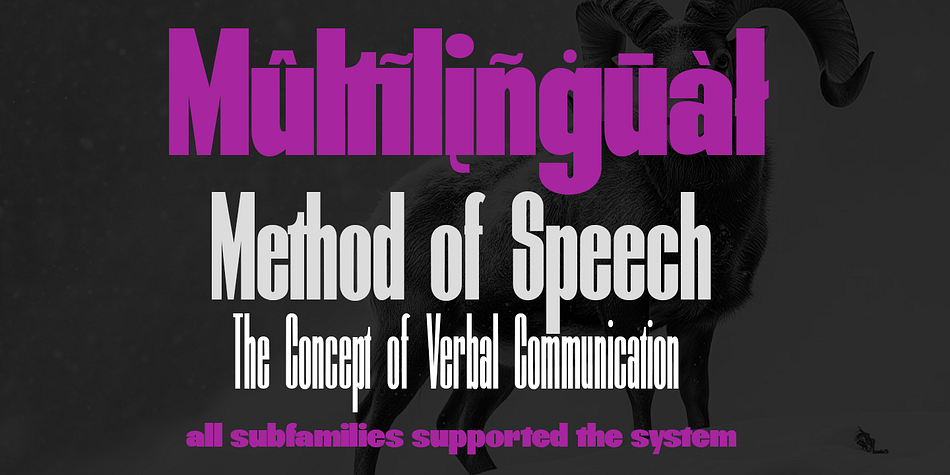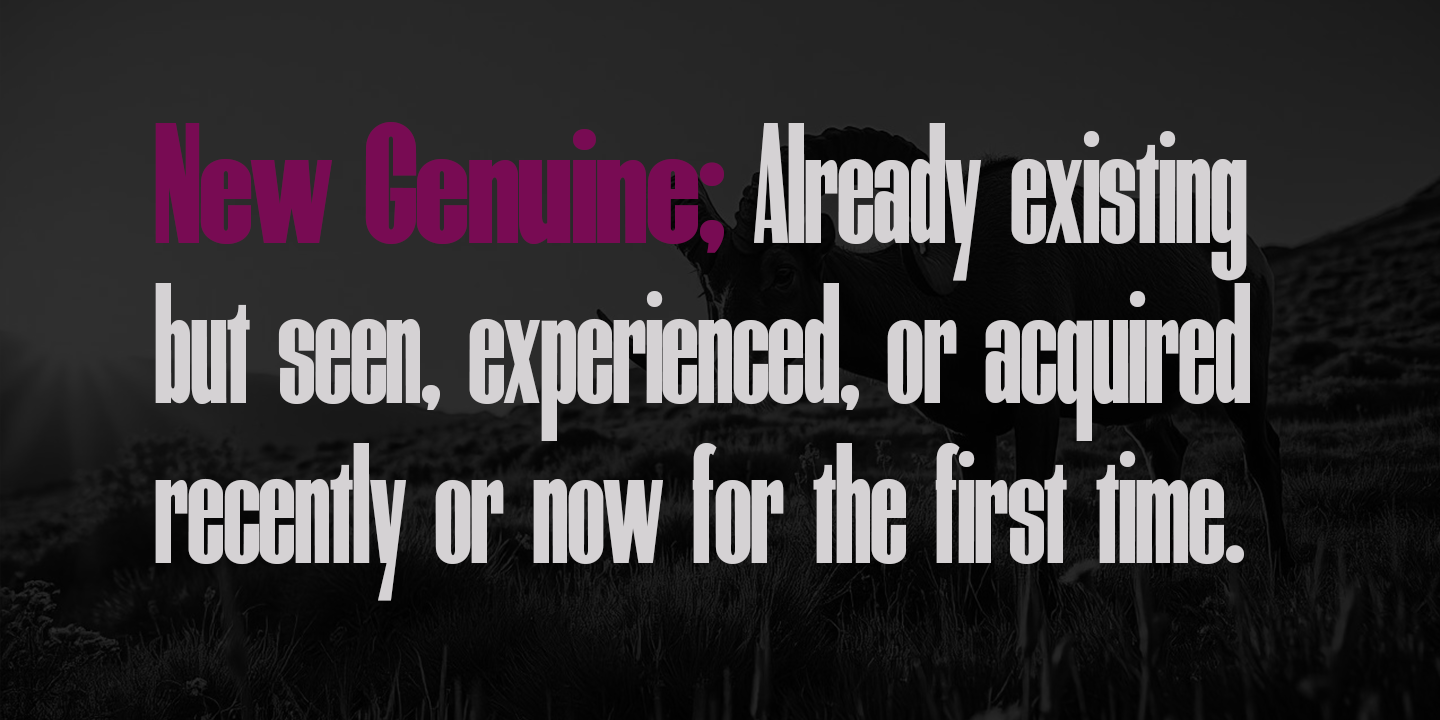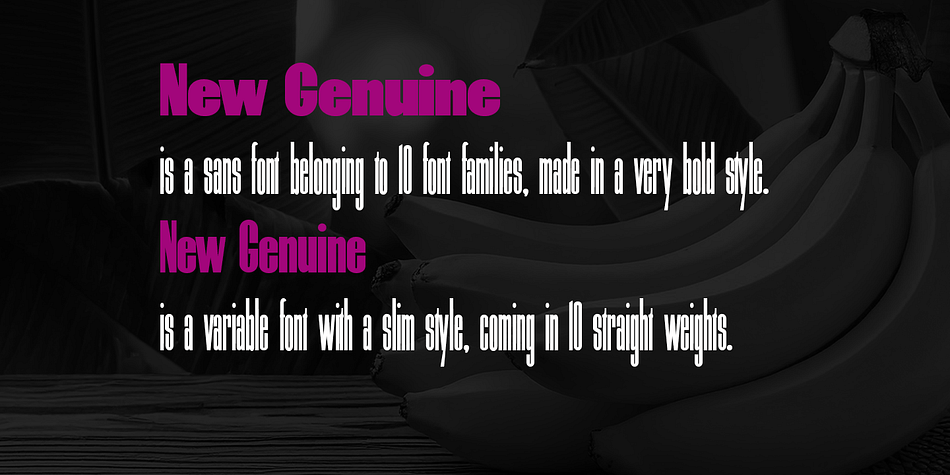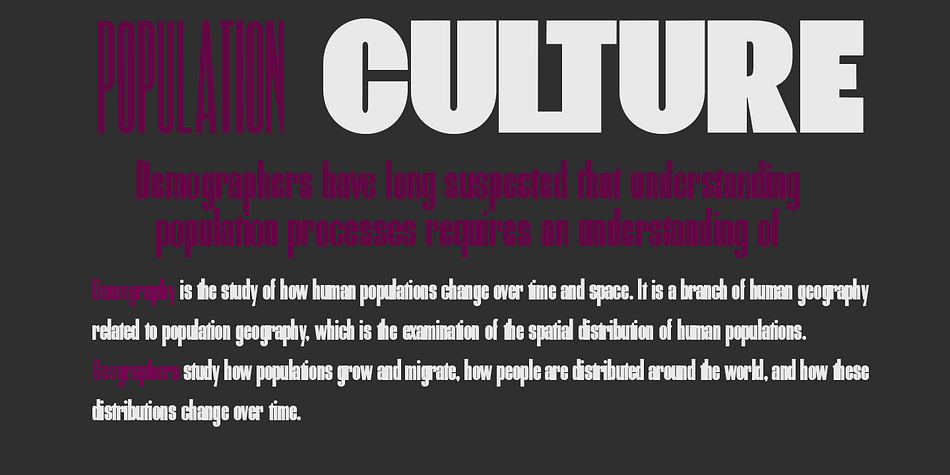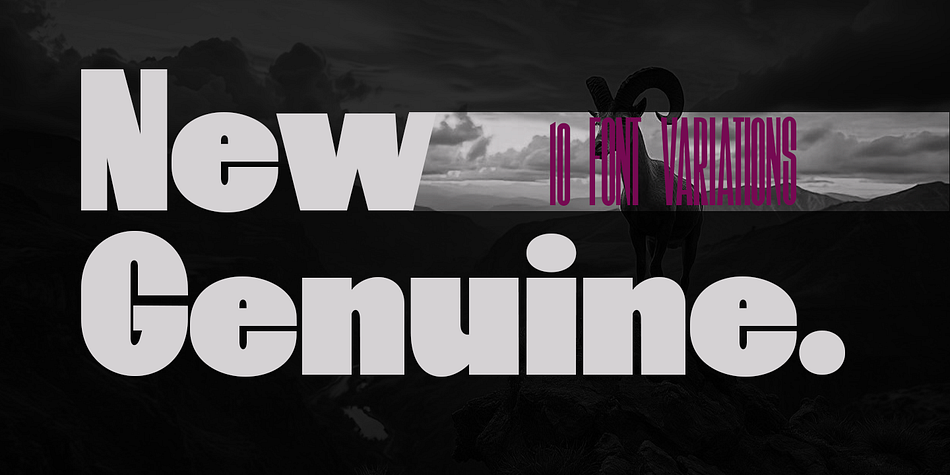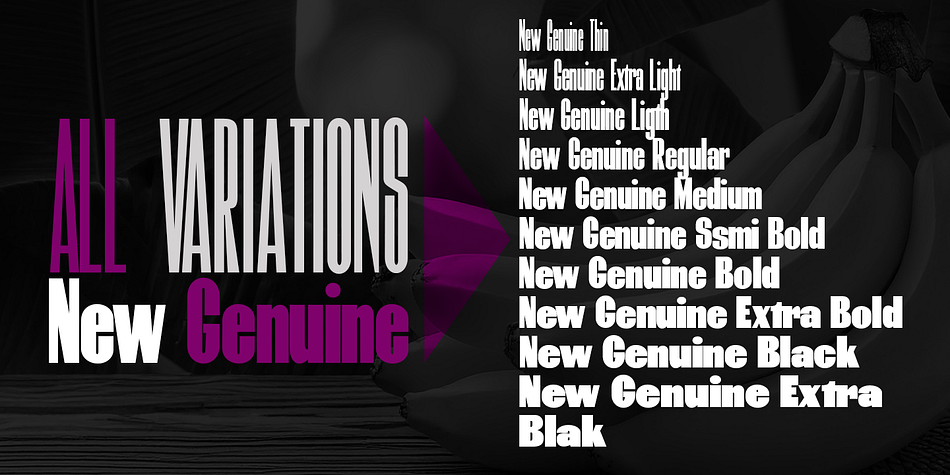
New Genuine
Designed by Roiyani Teungku, New Genuine is a sans serif font family. This typeface has ten styles and was published by Groens.
**New Genuine** is a sans font belonging to 10 font families, made in a very bold style.**New Genuine** is a variable font with a slim style, coming in 10 straight weights.
**New Genuine** works well in all brands, logos, magazines, movies. The different weights give you a wide host of applications, while the outlined fonts give a real modern feel to any project.
Multilingual support for multiple languages including: French, German, Spanish, Portuguese, Italian, Dutch, Finnish, Swedish and many more